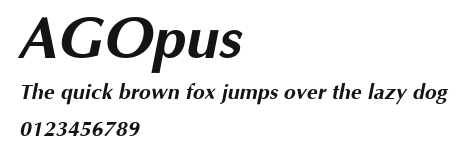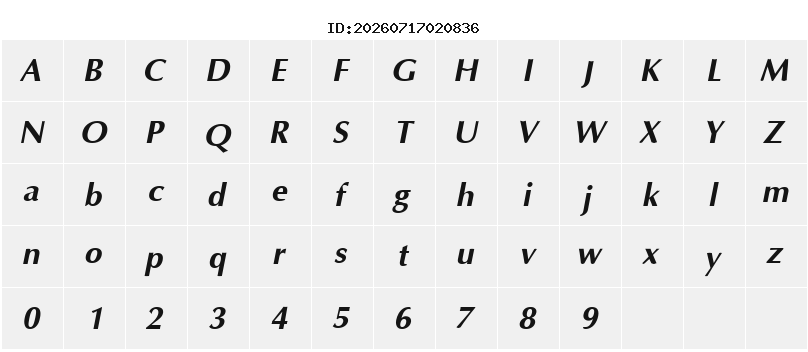
AGOpus Preview
• Font Name: AGOpus
• Font Style: Bold Oblique
• Font ID: Tild:AGOpus Bold Oblique
• Full Font Name: AGOpus Bold Oblique
• Version: 1.0 Sun Sep 06 18:59:03 1992
• PostScript Name: AGOpus-BoldOblique
• Character Count: 202
• Copyright: © 1992, Tilde Ltd. AG Fonts Collection. Created by Andrejs Grinbergs.
About AGOpus.ttf
AGOpus.ttf is a modern, elegant sans-serif font designed for ultimate readability and visual harmony. Perfect for branding, headlines, web design, and print materials.